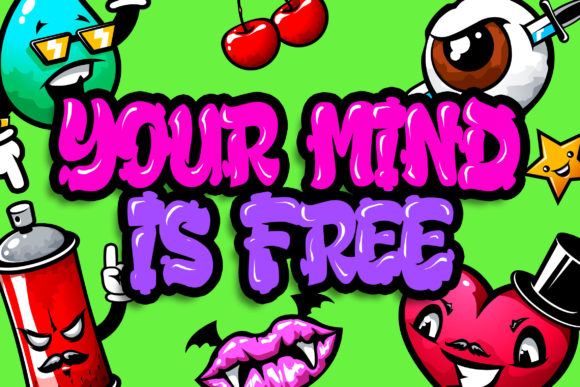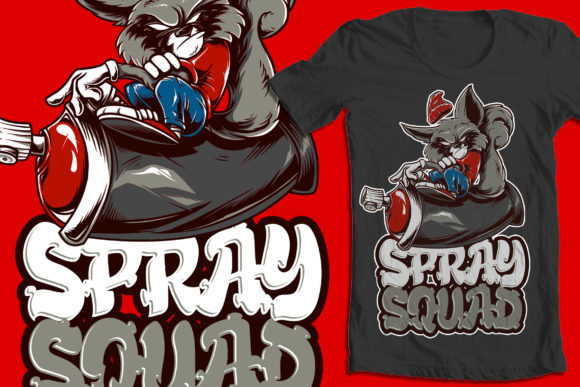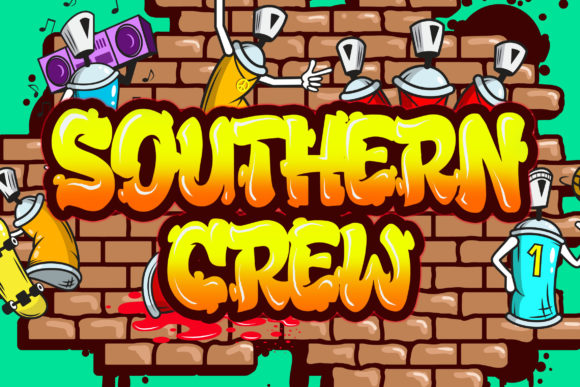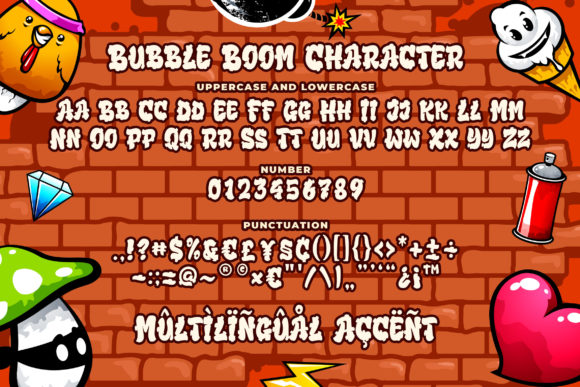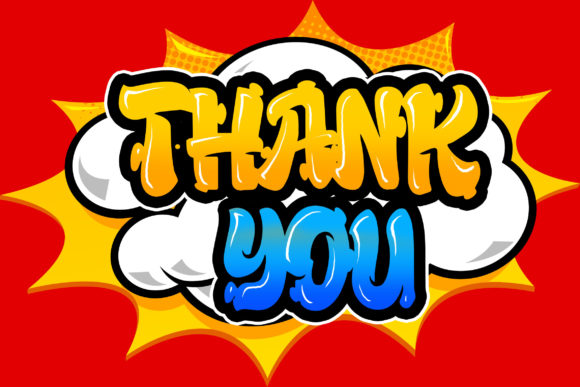
Bubble Boom Font: The Playful Display Font to Elevate Your Designs
Are you tired of using the same old fonts in your designs? Look no further than the Bubble Boom Font, a bold and bubbly display font that’s sure to add a touch of whimsy to any project. With its cartoonish appearance and playful vibe, Bubble Boom is the perfect choice for designers and crafters looking to make a statement.
What is Bubble Boom Font?
Bubble Boom Font is a unique and eye-catching display font that’s designed to resemble bubbles. Its bold and rounded letters are perfect for creating fun and playful designs that are sure to capture attention. Whether you’re working on a logo, poster, or social media graphic, Bubble Boom Font is sure to add a pop of personality to your project.
Key Features of Bubble Boom Font
- Bold and playful design: Bubble Boom Font features bold and rounded letters that are sure to make a statement in any design.
- Cartoonish appearance: The font’s cartoonish appearance makes it perfect for designs that require a playful and fun vibe.
- Easy to read: Despite its bold and playful design, Bubble Boom Font is easy to read, making it perfect for use in a variety of design projects.
- Versatile: Bubble Boom Font can be used in a variety of design projects, from logos and posters to social media graphics and more.
How to Use Bubble Boom Font in Your Designs
Using Bubble Boom Font in your designs is easy. Here are a few tips to get you started:
- Use it as a headline font: Bubble Boom Font is perfect for use as a headline font, where its bold and playful design can really make a statement.
- Pair it with a simple font: For body text, pair Bubble Boom Font with a simple font to create a nice contrast and make your design stand out.
- Experiment with colors: Bubble Boom Font looks great in a variety of colors, so don’t be afraid to experiment and find the perfect hue for your design.
Bubble Boom Font is the perfect choice for designers and crafters who want to add a touch of whimsy to their projects. Here are a few ideas to get you started:
- Create a fun logo: Use Bubble Boom Font to create a fun and playful logo for a children’s brand or product.
- Design a colorful poster: Use Bubble Boom Font to create a colorful and eye-catching poster for a event or promotion.
- Make a statement on social media: Use Bubble Boom Font to create a social media graphic that really makes a statement.
In conclusion, Bubble Boom Font is a bold and playful display font that’s sure to add a touch of whimsy to any design project. With its cartoonish appearance and easy-to-read design, it’s perfect for designers and crafters who want to make a statement. So why not give it a try and see how it can elevate your designs?